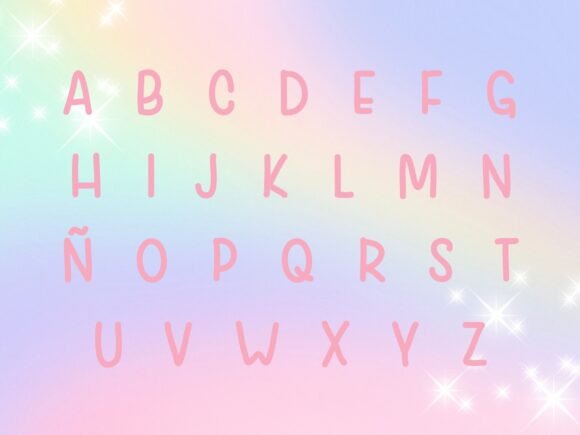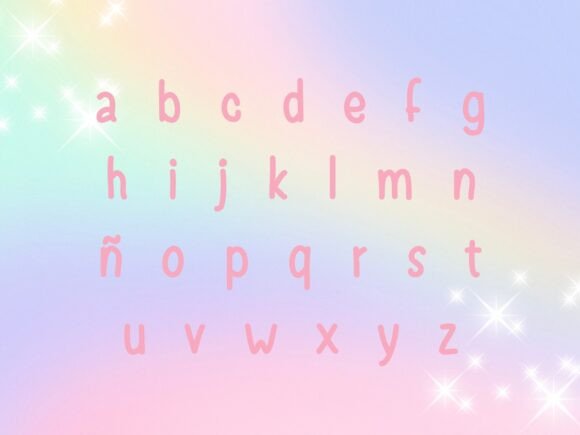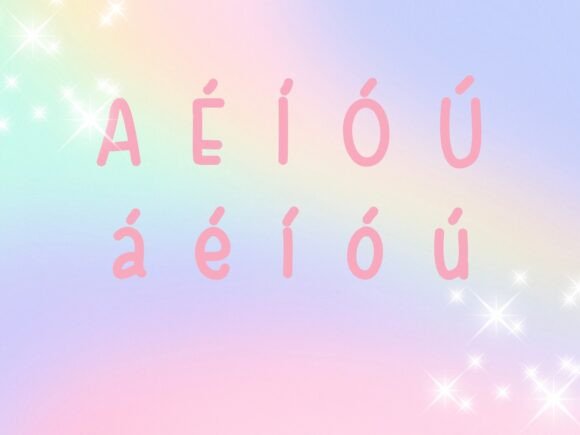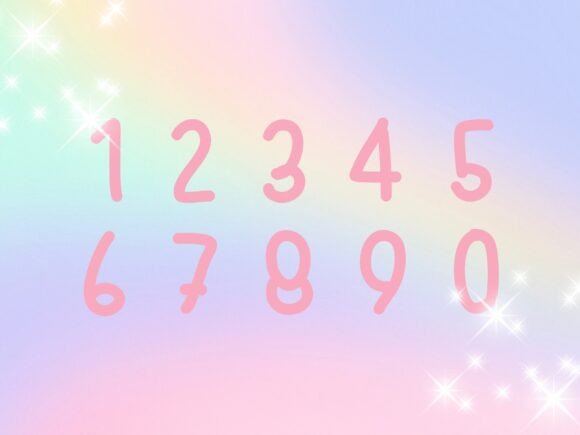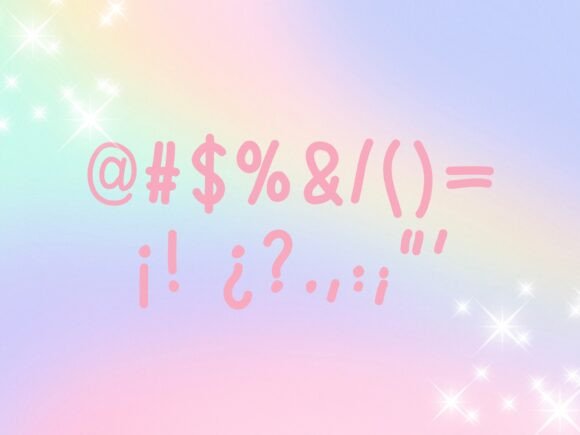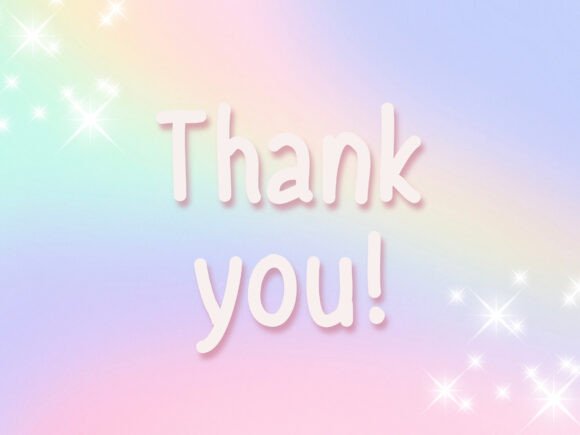
Discover the Joy of Bodoquito Font
Enter the delightful Bodoquito Font, a playful handwritten font that’s sure to bring a smile to any project. With its chubby letterforms and soft edges, this font exudes a feeling of warmth and friendly charm. It’s the perfect addition to any designer’s toolkit, offering a unique and whimsical touch that’s sure to elevate any design. Whether you’re creating a children’s book, a social media graphic, or a wedding invitation, the Bodoquito Font is a valuable resource that’s sure to inspire.
Bodoquito Font Key Features
- Font Family: Bodoquito Font
- Unique Characteristic: Bodoquito Font features a unique blend of modern and vintage elements, making it suitable for a wide range of design applications
- Font Style: Available in Regular, Bold, Italic, and Bold Italic styles
Bodoquito Font Review
Overall, I was pretty excited to dive into the Bodoquito Font, and for the most part, it delivers ✨. The font’s unique blend of Latin and Spanish influences creates a visually appealing and eclectic look that’s perfect for projects requiring a touch of cultural flair. The bold weights are particularly striking, making it an excellent choice for headings and titles.
- Beautiful, hand-drawn quality ✨: The Bodoquito Font has a clear, human touch that sets it apart from more generic sans-serif fonts.
- Excellent for cultural or language-based projects ✨: The font’s Latin and Spanish influences make it an excellent choice for projects focused on these regions or languages.
- Good support for multilingual text ✨: The font covers a wide range of languages, making it a great option for projects requiring text in multiple languages.
However, there are some limitations to consider ⚠️. The font’s irregular letterforms can make it challenging to read at smaller sizes, and the italic weights may not be as well-suited for body text. Additionally, the font’s unique style may not be to everyone’s taste.
Overall, I think the Bodoquito Font is a great choice for projects where a unique, hand-drawn look is required. While it may not be suitable for all projects, its strengths make it a valuable addition to any designer’s toolkit.
Tips for Getting the Most Out of Bodoquito Font
To get the most out of Bodoquito font, consider the following tips:
- Use Bodoquito font for headings and titles to create a bold and eye-catching effect.
- Pair Bodoquito font with a clean and simple font for body text to create a visually appealing contrast.
- Experiment with different font sizes and colors to enhance the readability and visual impact of your text.
Bodoquito font is commonly used for:
- Headings and titles in brochures, flyers, and posters.
- Brand logos and identity design.
- Editorial and publishing design.